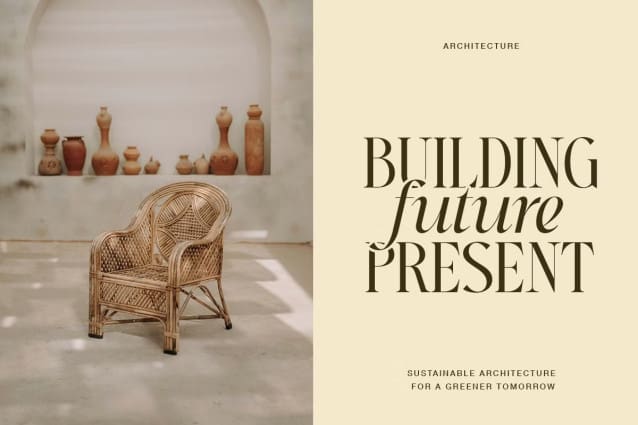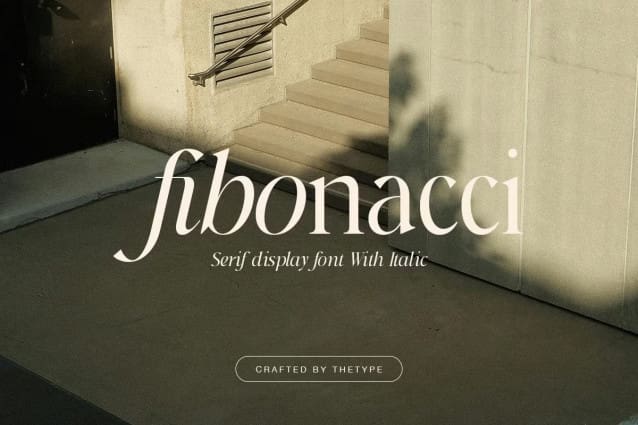
Fibonacci Font
Fibonacci Font – a modern serif font inspired by the genius of the deret Fibonacci. This font can look more classic (conservative) display serif with italic, which is perfect for texts. So same he can be more expressive, playing and more modern with alternative substitutes and ligatures, try to play with them and you will get the uniqueness in your project.
Following multilingual support: ÀÁÂÃÄÅĄÇĆÈÉÊËĘÌÍÎÏÐÑŃŁÒÓÔÕÖØÙÚÛÜŚŠŸÝŹŻŽßàáâãäåçèéêëìíîïðñòóôõöøùúûüýÿąćęłńśšźżž